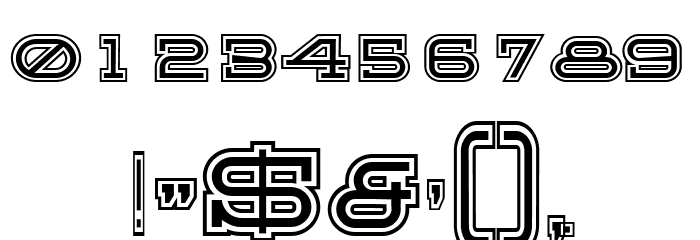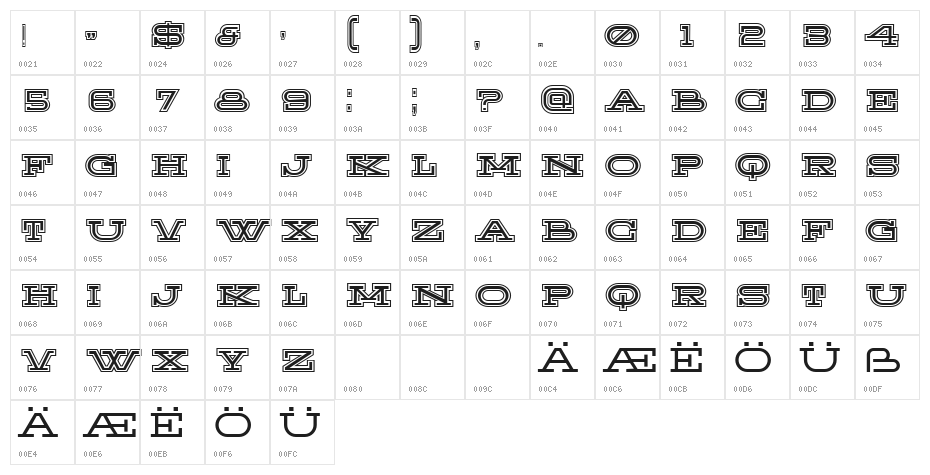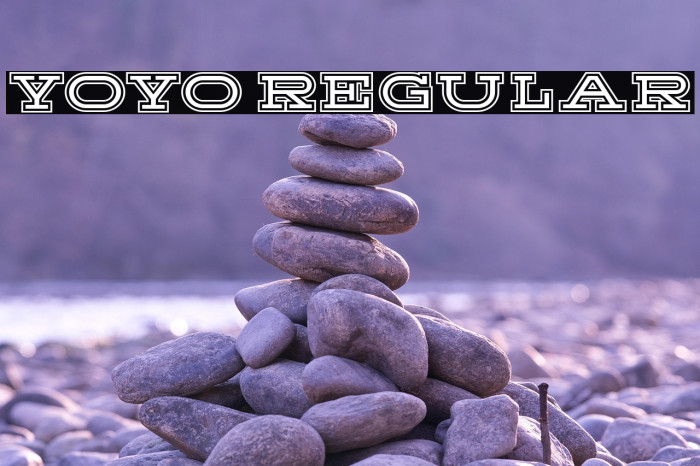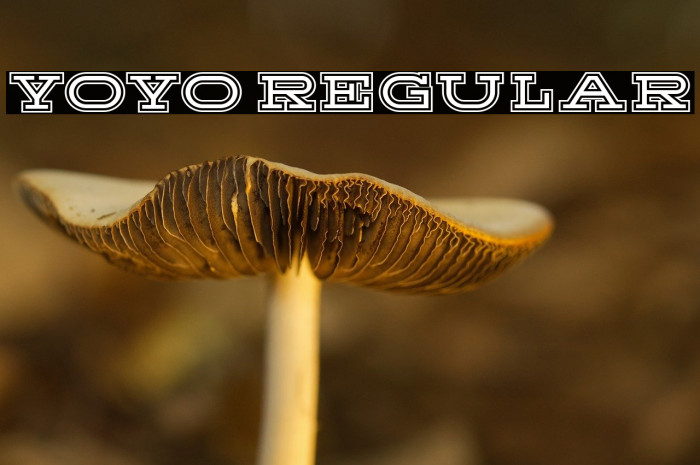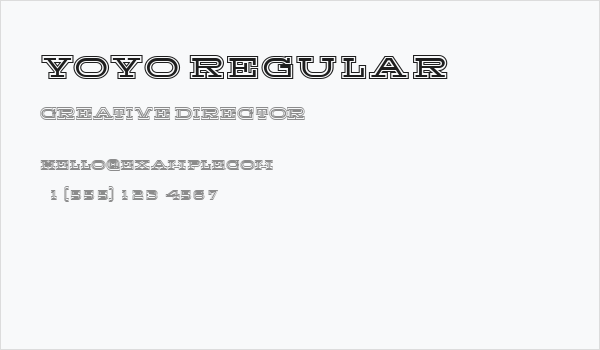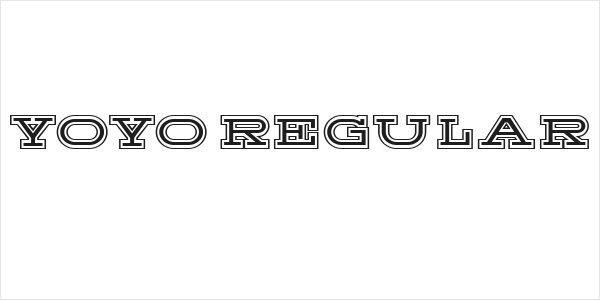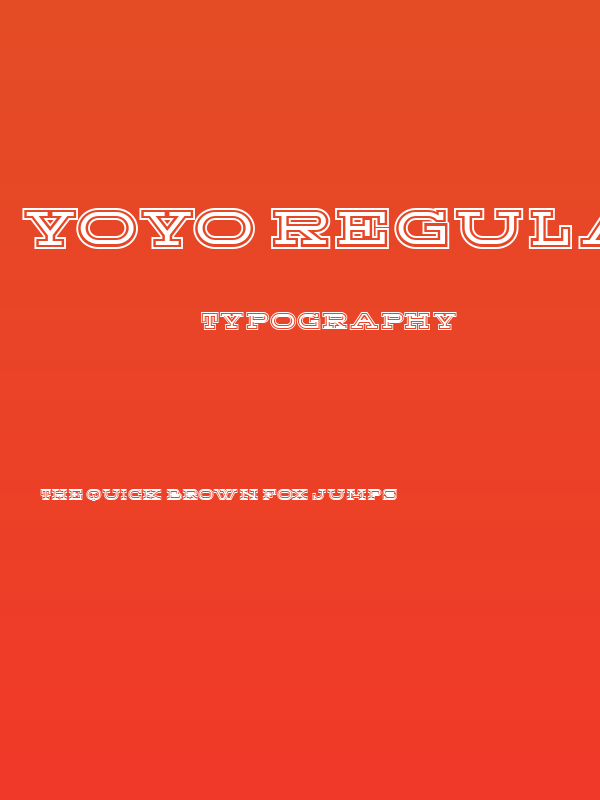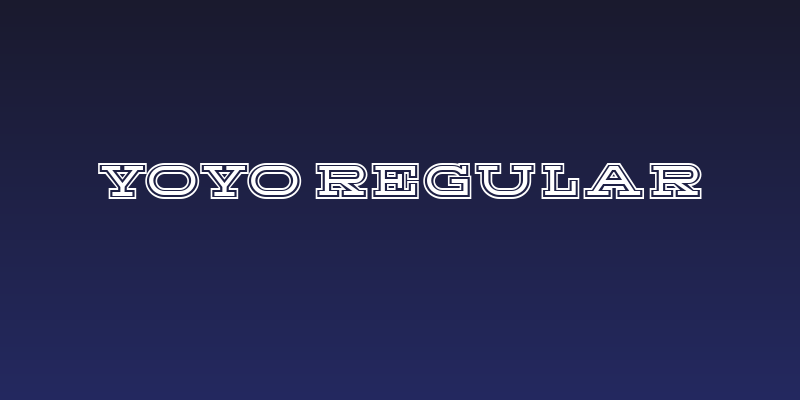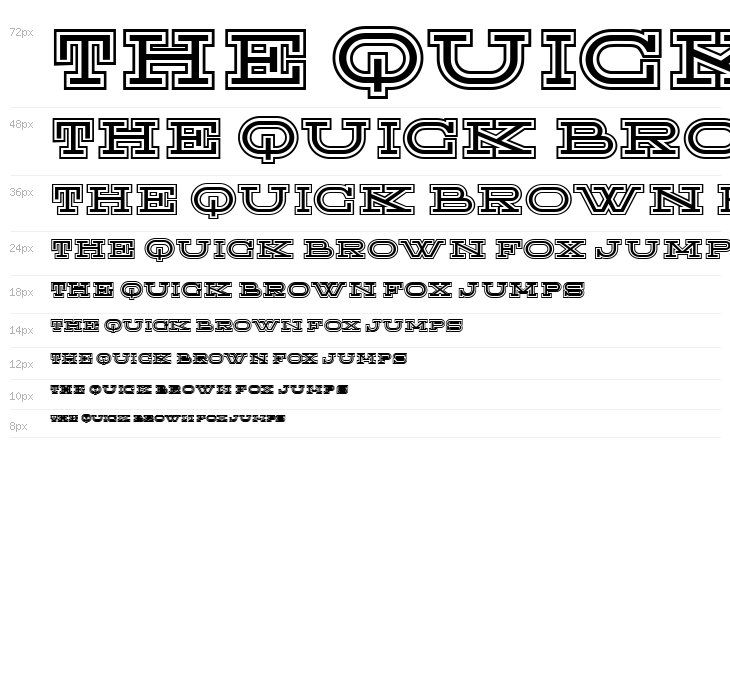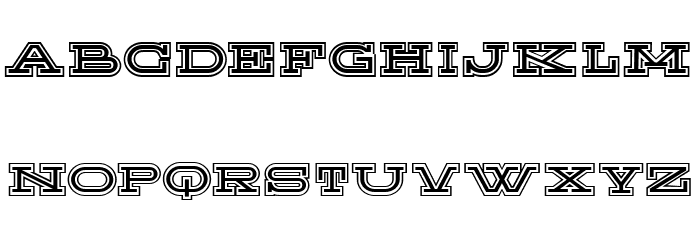
Yoyo Regular Font
Yoyo Regular Description
This font features a bold, decorative style with a double-line outline that gives it a striking and eye-catching appearance. The uppercase letters are prominently designed with a geometric flair, making them ideal for attention-grabbing headlines or titles. The numbers and special characters maintain the same bold outline, ensuring consistency across all characters. The font's unique design is both modern and playful, suitable for projects that require a standout typographic element.